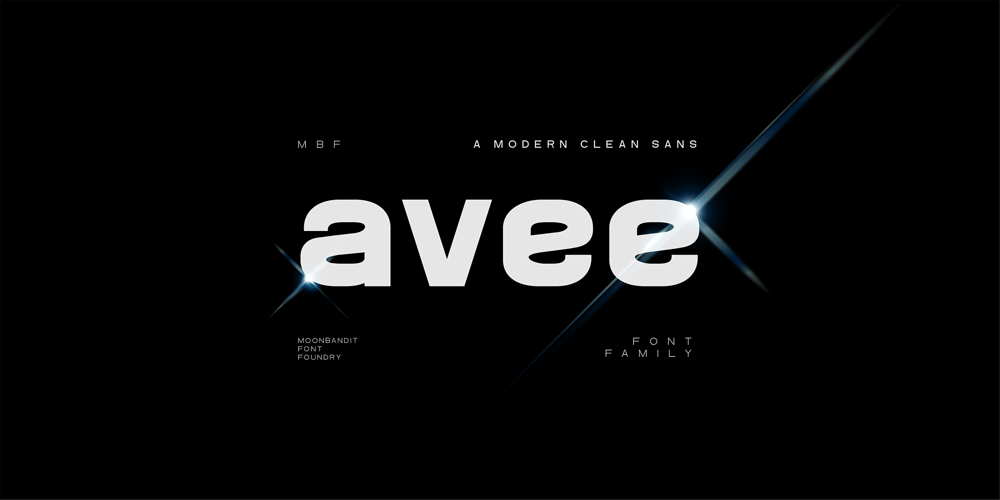
MBF Avee Font Family was designed by Bramaji Dipa Manggala and published by Moonbandit. MBF Avee contains 3 styles and family package options. Presenting MBF Avee – a cutting-edge sans-serif font meticulously crafted to embody the essence of modernity and versatility. With its clean lines and minimalist design, MBF Avee offers a sleek typographic solution for a wide range of applications. Whether used in print or digital media, its timeless aesthetic ensures a sophisticated and impactful presentation. Elevate your design projects with MBF Avee, where clarity meets contemporary style for a truly refined visual experience.